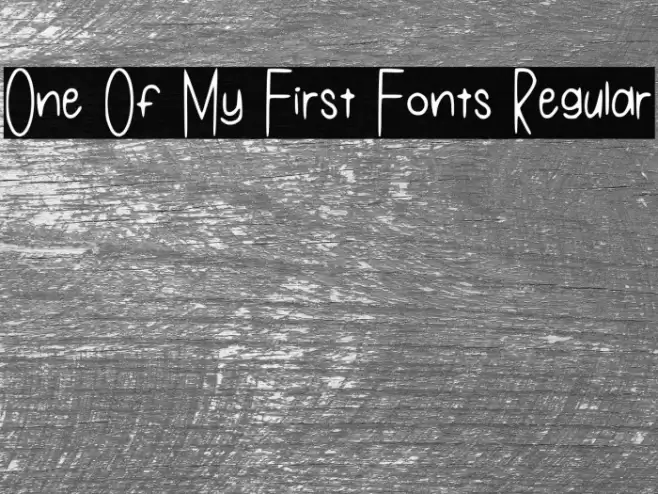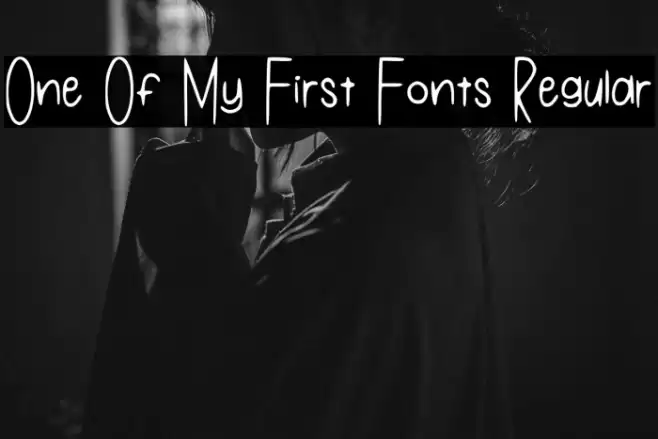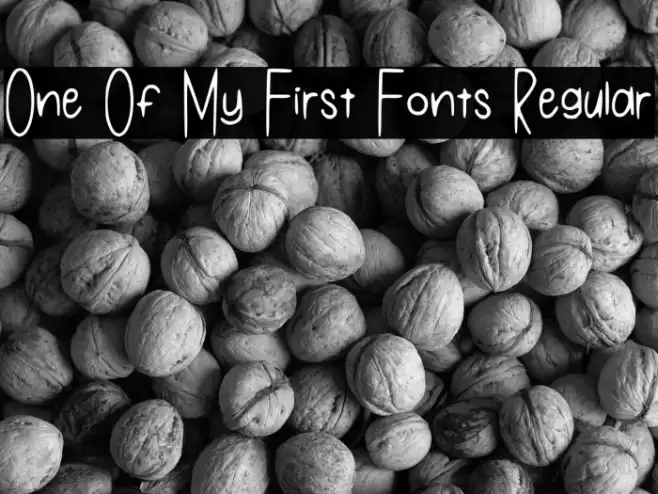
One Of My First Fonts Regular Font
One Of My First Fonts Regular Description
This font features a playful and informal style, characterized by its tall, narrow letters with a slightly uneven baseline, giving it a hand-drawn appearance. The uppercase letters are elongated, while the lowercase letters maintain a consistent height, contributing to its whimsical charm. The numerals are similarly styled, with a quirky, casual feel. The font's overall look is approachable and friendly, making it suitable for projects that require a personal touch.
A playful, hand-drawn font with tall, narrow letters and a whimsical style from Uncategorized fonts.
- Proposed Projects: Ideal for children's books, greeting cards, casual invitations, and playful branding projects.
- Width: Condensed
- Overall Style: Playful
- Use Case: Headlines, Casual text, Invitations